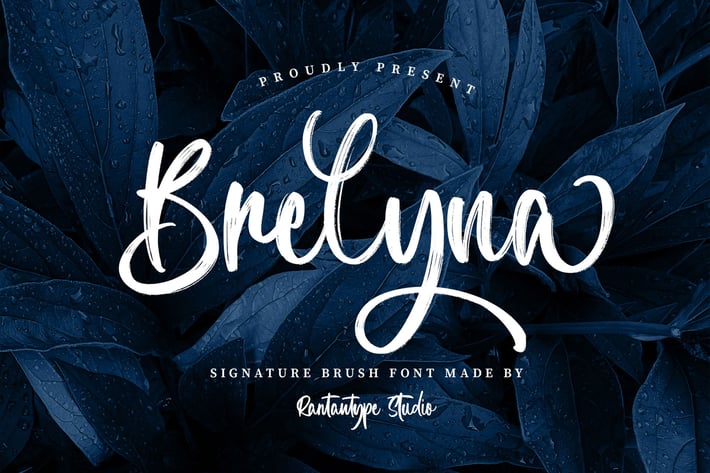
Make your creative project with brelyna signature brush font. Brelyna bring authentic brush to create harmony of typography. Brelyna is a professional choice for any creative endeavor, creating, modern, chic, lifestyle design such as logotype, title, cover, branding, invitations, wedding designs, display and magazine, social media posts, advertisements, printed quotes, product packaging, corporate brand, product designs, labels, photography, watermarks, special events and any other project with handwritten touch.